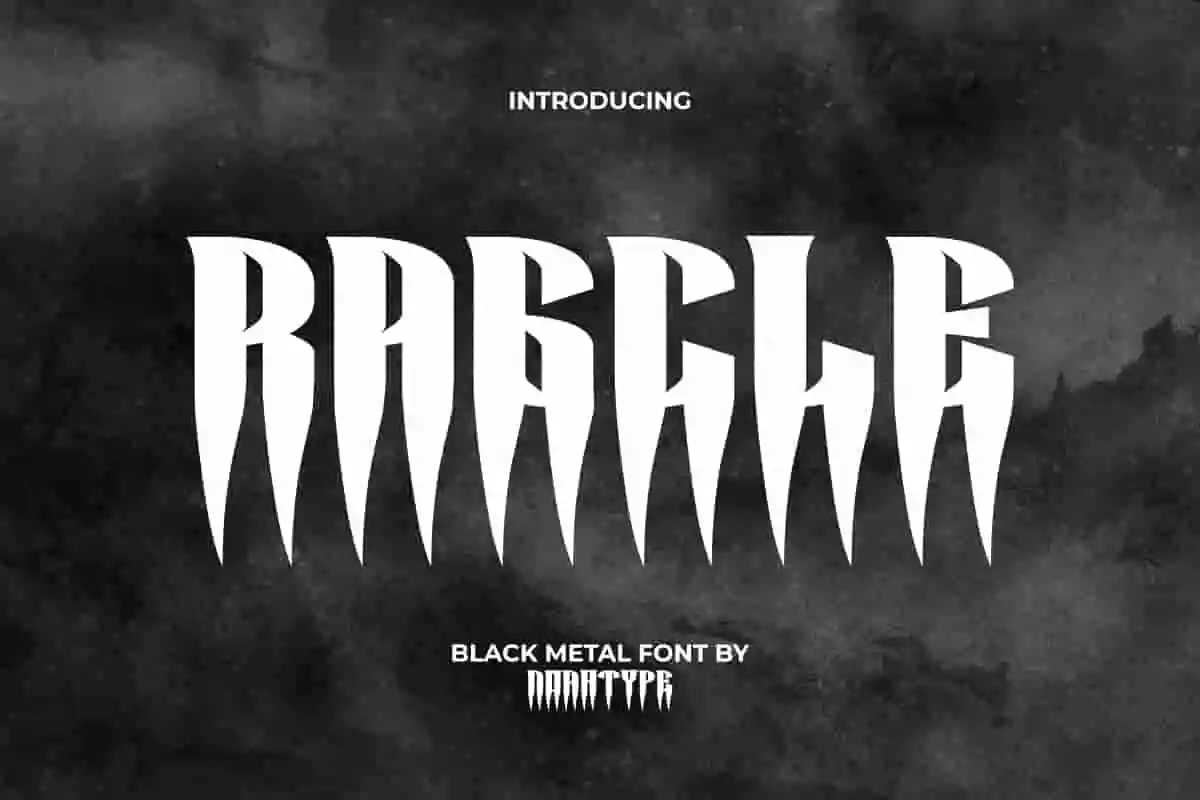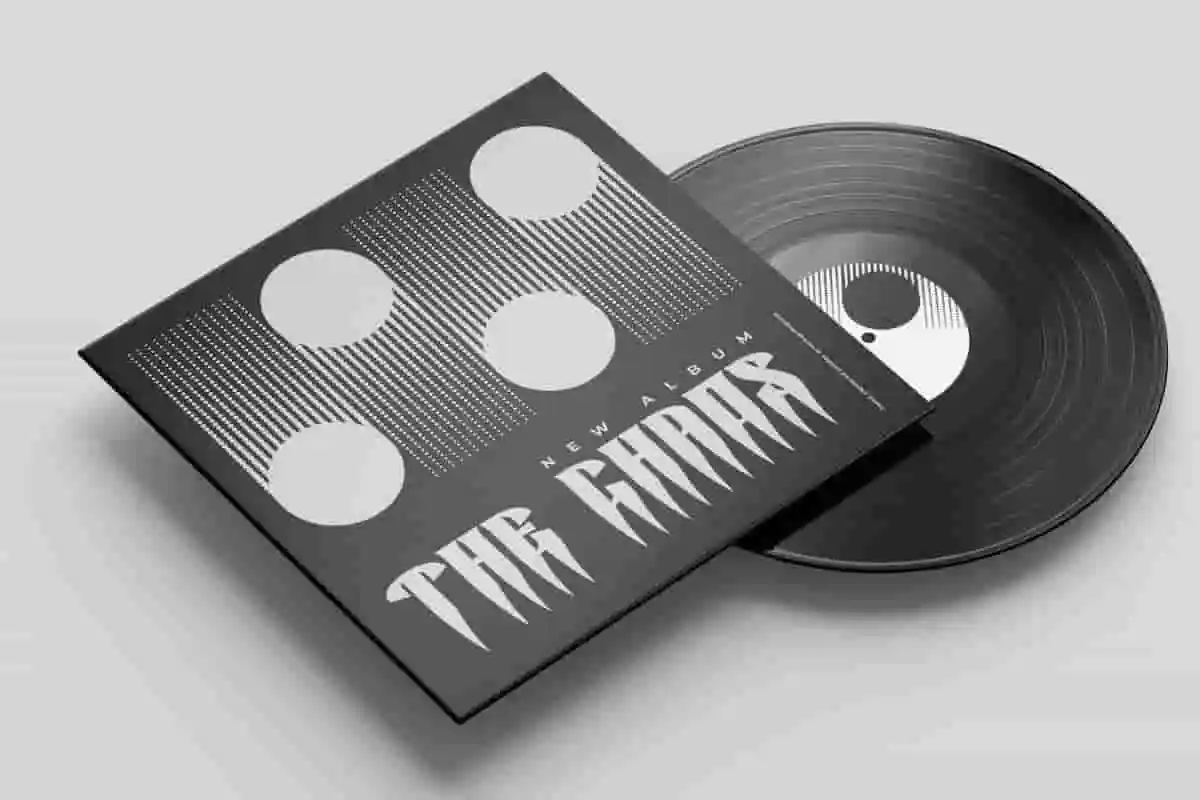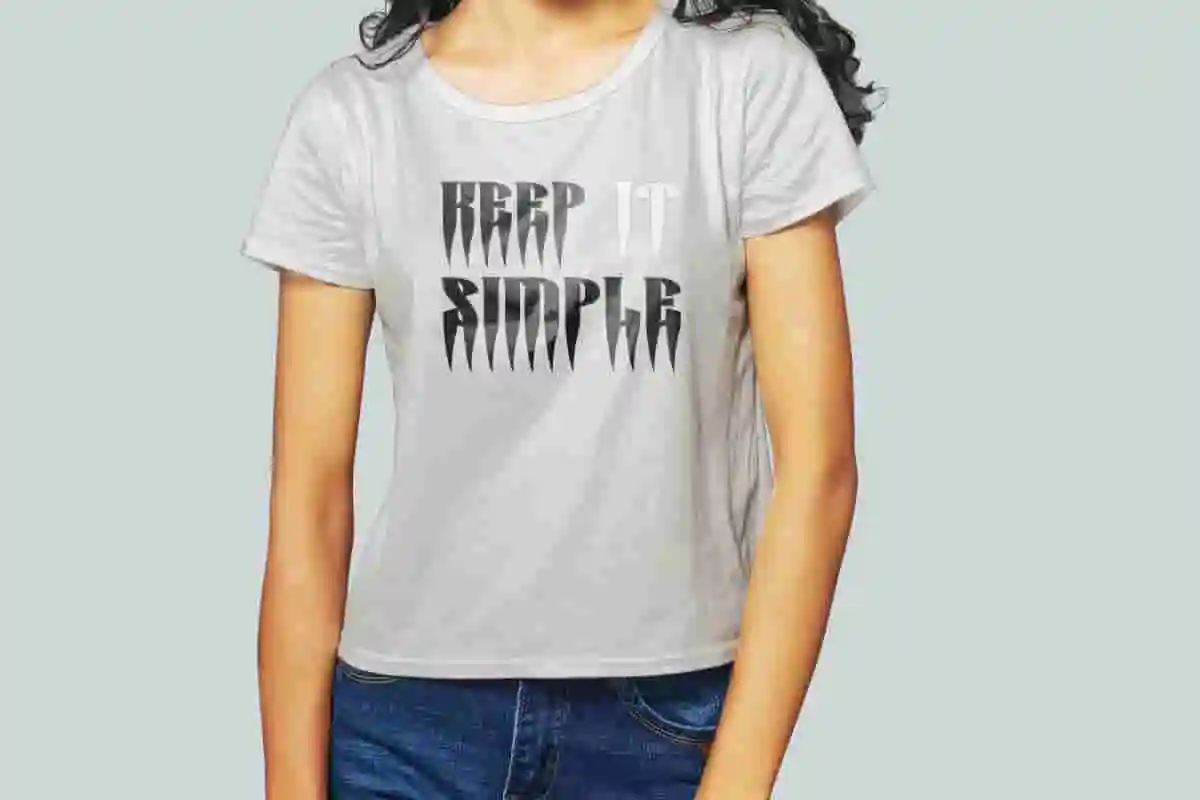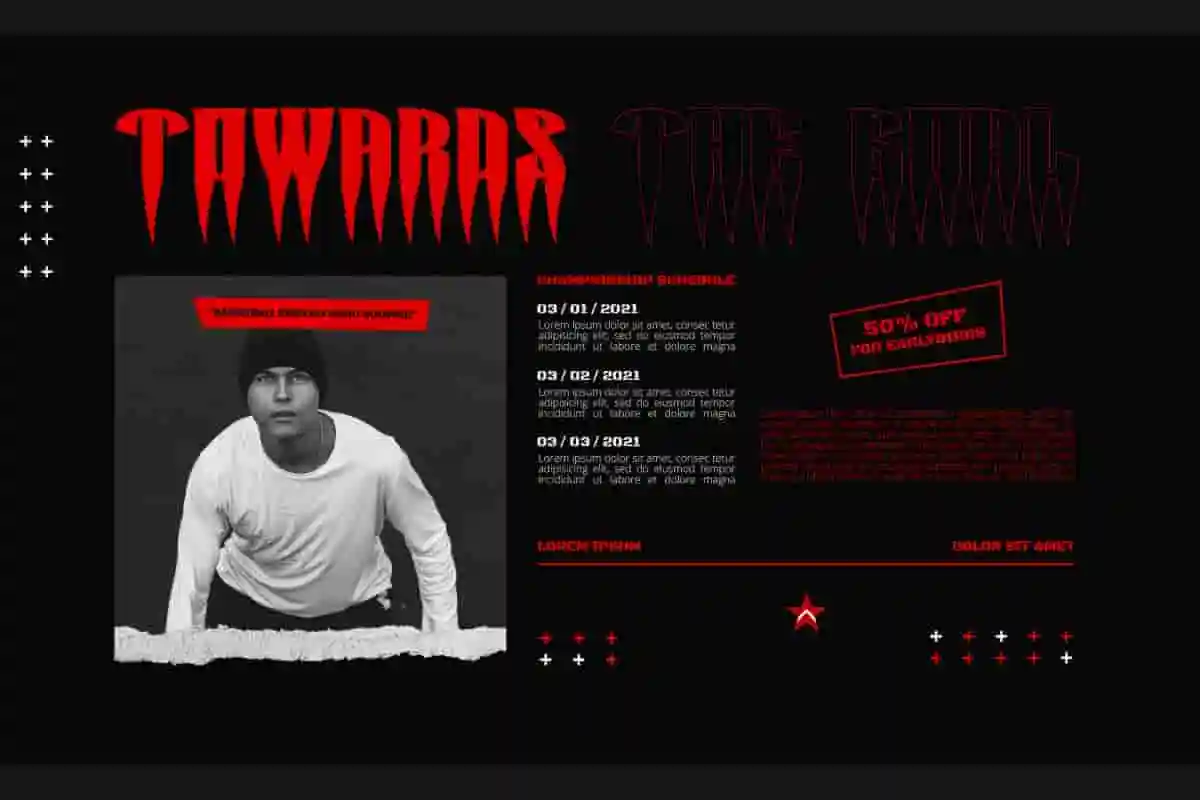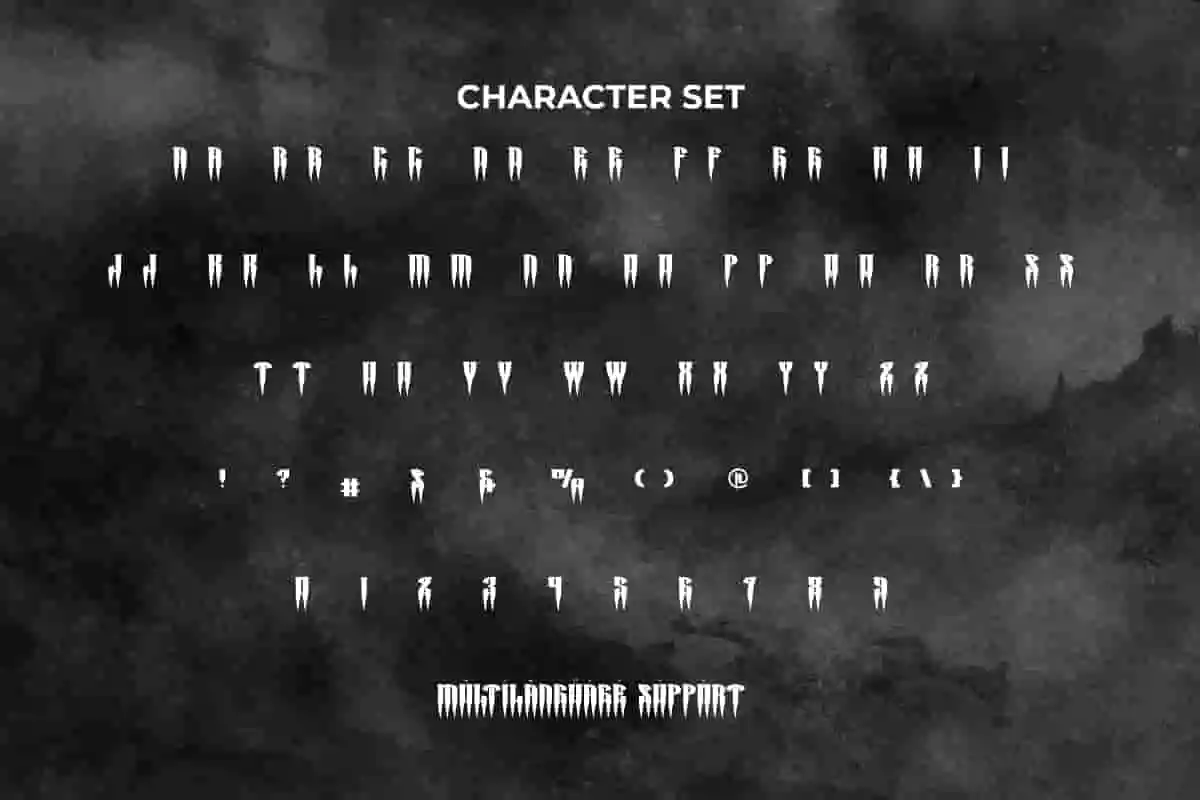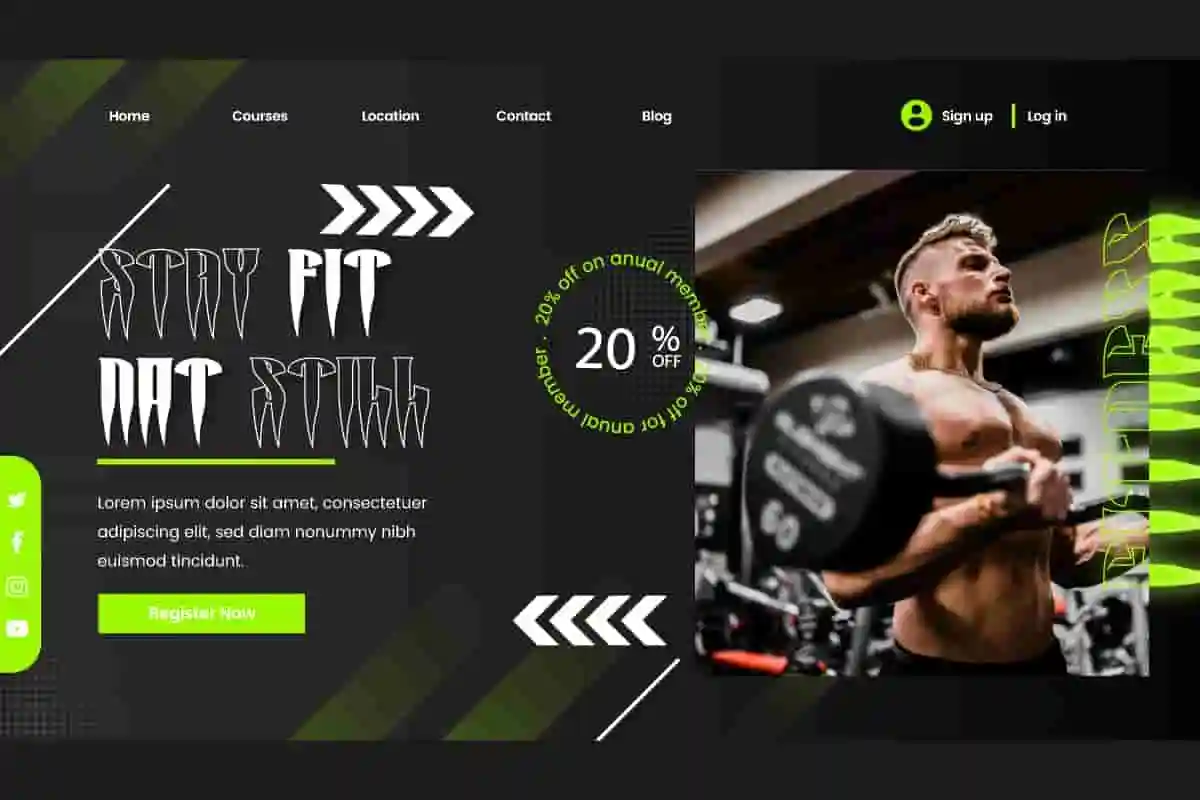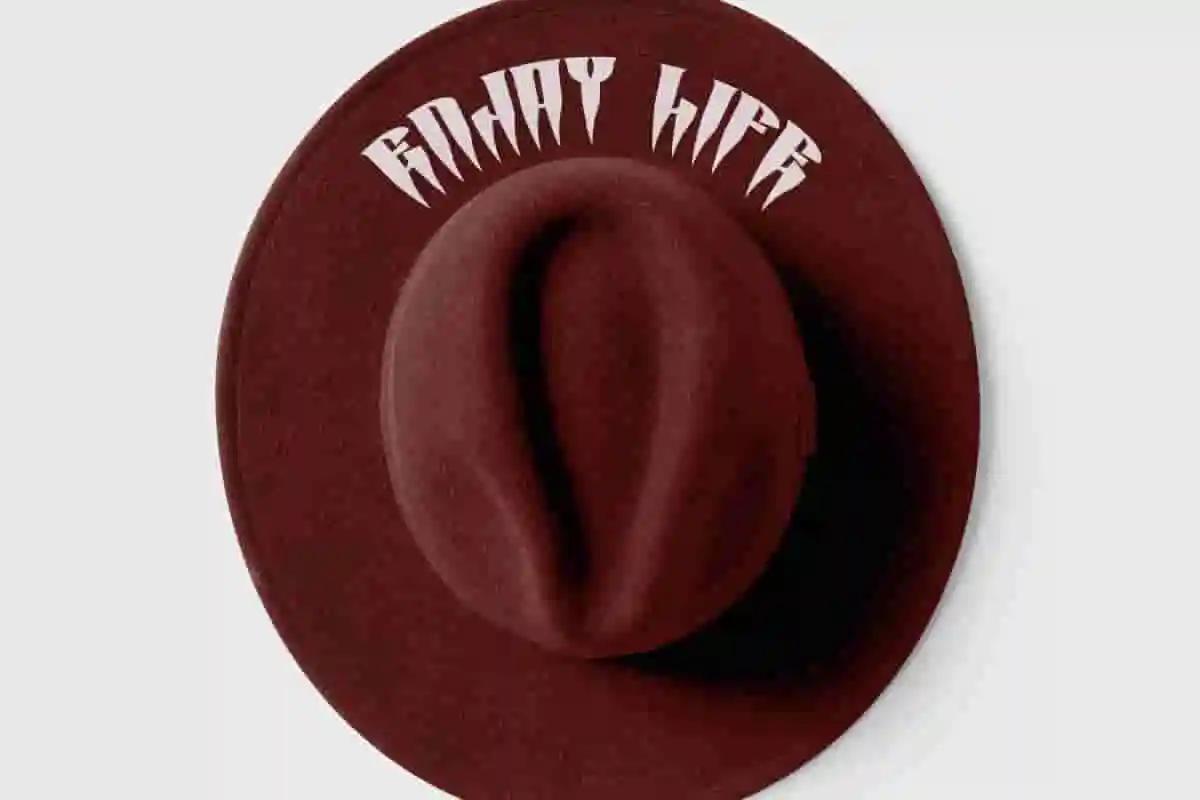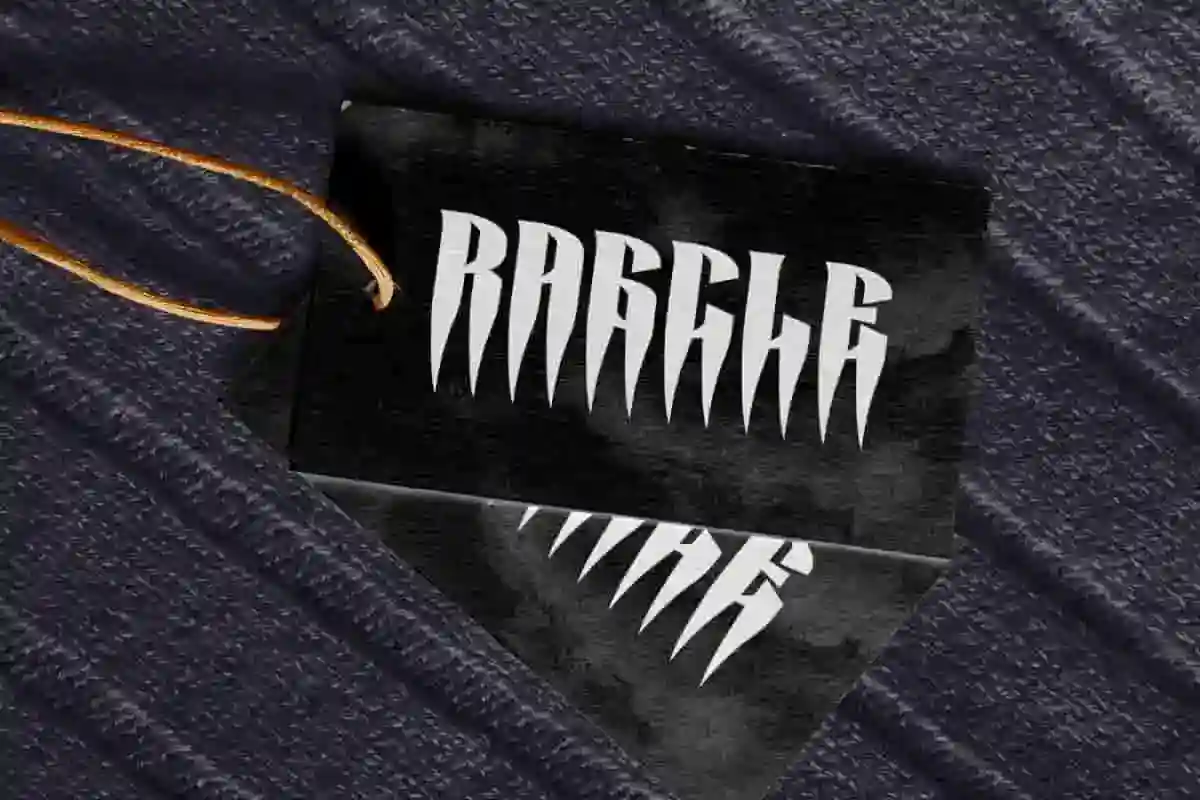
Ragcle Font is a spine-chilling display font with black metal style by NoahType. This font is made special by having a unique and scary appearance at the same time. It will be perfect for any designs, such as custom design, brand image, poster, label, invitation, cover, marketing material, menu, printing, product packaging, quotes, signage, website, and many more!
Ragcle Font includes full set of ALL CAPS for Uppercase and Lowercase Basic Characters, Numerals, Punctuation, and Symbol. This cool font will make your design amazing and also a perfect choice for many industries, such as game, movie, music, accessories, advertising, art, café, event or festival, fashion, printing, publishing, etc.